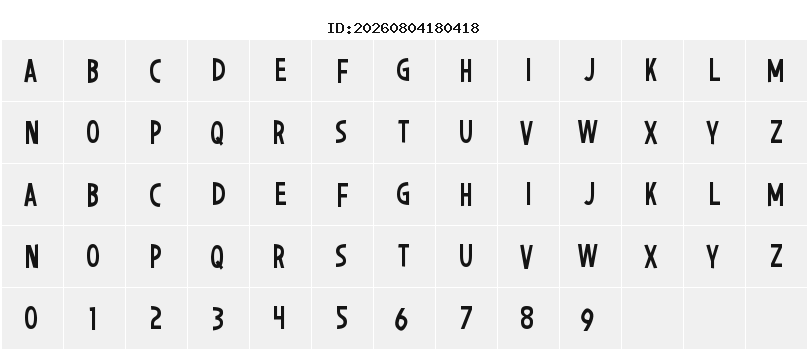
Niagaraphobia Preview
• Font Name: Niagaraphobia
• Designer: AM
About Niagaraphobia.otf
Niagaraphobia.otf is a modern, elegant sans-serif font designed for ultimate readability and visual harmony. Perfect for branding, headlines, web design, and print materials.